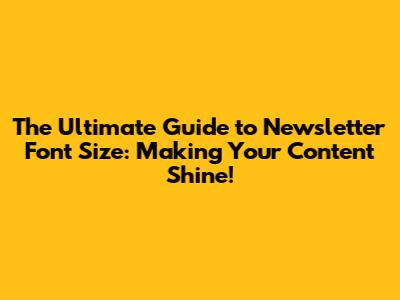
- Different Devices: Smartphones (iOS and Android), tablets, laptops, desktops.
- Different Email Clients: Gmail, Outlook, Apple Mail, Yahoo Mail, etc.
- Different Browsers: If your newsletter includes web content.
- Readability: Is the text easy to read without squinting?
- Spacing: Is the line height comfortable?
- Consistency: Does it look consistent across devices and clients?
- Responsiveness: Does the layout adjust well to different screen sizes?
Hey guys! So, you've poured your heart and soul into crafting an awesome newsletter, right? The content is killer, the design is slick, but there's one tiny detail that can make or break the reader experience: font size. Seriously, picking the recommended font size for paragraphs in a newsletter is way more important than you might think. It's the difference between readers devouring your every word and them squinting, getting bored, and hitting that unsubscribe button. Let's dive deep into why font size is king and how to nail it so your newsletters are not just read, but loved.
Why Font Size is a Newsletter Game-Changer
Alright, let's get real. When you're reading an email on your phone, a tablet, or even your trusty laptop, what's the first thing that can annoy you? Yep, text that's too small. If your readers have to zoom in or strain their eyes, they're not going to stick around. Choosing the right font size for newsletter paragraphs is all about making your content accessible and enjoyable. Think of it as the welcome mat for your readers – if it's tattered and tiny, they might just turn back. A good font size ensures your message gets across clearly and comfortably, encouraging longer reading times and better engagement. It's not just about aesthetics; it's about user experience (UX). In the fast-paced digital world, you want to make it as effortless as possible for your audience to consume your valuable information. A well-sized font reduces cognitive load, making it easier for readers to process the information you're providing. This is especially crucial for newsletters, which often contain a mix of informative content, calls to action, and brand messaging. If the text is too small, these elements can get lost or become frustrating to find. We're talking about making your newsletter a pleasure to read, not a chore. So, while you're busy crafting compelling copy and eye-catching visuals, don't forget the humble font size. It's the silent hero of newsletter readability, working tirelessly to keep your readers engaged from the first word to the last. It directly impacts how long someone spends reading, how much they retain, and whether they'll come back for more. Plus, it shows you care about your audience's comfort, which builds trust and loyalty. So, let's get this right, shall we?
The Sweet Spot: Recommended Font Sizes
So, what's the magic number? What's the recommended font size for paragraphs in a newsletter that hits that sweet spot? For body text in emails and newsletters, you generally want to aim for 16 pixels (px) as your baseline. Yes, 16px is widely considered the gold standard for desktop and mobile readability. Why 16px? It strikes a fantastic balance. It's large enough to be easily legible on most screens, even for those with less-than-perfect vision, without feeling overwhelmingly large or taking up too much precious space. Many email clients and web browsers now render text at this size or even larger by default, so aligning with it ensures consistency. However, don't stop there! Consider your audience and the complexity of your content. If your newsletter is packed with dense information or targets an older demographic, you might even bump it up to 17px or 18px. Conversely, if you have a very visually driven newsletter with short bursts of text, you might get away with 15px, but I'd honestly advise against it for primary paragraphs. Remember, this is for your main body text. Headings, subheadings, and captions will have different optimal sizes (we'll get to that!). The key is to test and see what works best for your specific newsletter and audience. Different fonts also have different x-heights (the height of lowercase letters like 'x'), which can affect perceived size. A 16px font from one family might look bigger or smaller than a 16px font from another. So, while 16px is your guiding star, always preview your newsletter on various devices and email clients to ensure it looks and feels just right. We're aiming for clarity, comfort, and a positive reading experience, and 16px is your best bet to achieve that broad appeal.
Desktop vs. Mobile: The Great Divide
Here's where things get a little tricky, guys. The recommended font size for newsletter paragraphs isn't a one-size-fits-all deal when you factor in devices. What looks great on a big desktop monitor might feel cramped on a small smartphone screen. The golden rule? Mobile-first design. Most people, especially these days, will be reading your newsletter on their phones. So, while 16px is a great starting point for desktop, you must ensure it looks equally, if not more, readable on mobile. Many email marketing platforms allow you to set different font sizes for desktop and mobile, which is super handy. Often, keeping body text at 16px for both is perfectly fine, as mobile devices have scaled things appropriately. However, some folks find that increasing the font size slightly on mobile – maybe to 17px or even 18px – can provide an even better reading experience. The key takeaway here is responsive design. Your newsletter should adapt gracefully to different screen sizes. Use fluid layouts and ensure your font choices render well across the board. Test, test, and test again! Send test emails to yourself and view them on various devices (iPhone, Android, different tablets, desktops) and in different email clients (Gmail, Outlook, Apple Mail). Pay close attention to how the text looks. Is it easy to read without zooming? Does it feel comfortable? Are the line heights appropriate (more on that later)? Prioritizing the mobile experience means you're catering to the majority of your audience and ensuring your message isn't lost in translation from a larger screen to a smaller one. Don't just set it and forget it; responsiveness is crucial for keeping readers engaged, no matter their device.
Beyond Pixels: Font Choice and Line Height Matter Too!
Okay, so we've hammered home the importance of 16px, but honestly, font size is only part of the readability puzzle, guys. Two other crucial elements are your font choice and line height. Let's break it down.
Font Choice: The Personality of Your Text
Not all fonts are created equal. When selecting a font for your newsletter, prioritize readability and web-friendliness. Serif fonts (like Times New Roman or Georgia) have small decorative strokes at the ends of letters, which can guide the eye along the line, making them traditionally good for print. However, on screens, sans-serif fonts (like Arial, Helvetica, Open Sans, or Lato) are often preferred. They are cleaner, simpler, and tend to render more crisply on digital displays, reducing eye strain. Stick to one or two fonts maximum – a primary font for body text and perhaps a different one for headings. Avoid overly decorative, script, or condensed fonts for your main paragraphs; they might look cool, but they're usually a nightmare to read in bulk. Think clarity and accessibility above all else. Ensure the font you choose has good legibility at smaller sizes and renders consistently across different email clients.
Line Height (Leading): Giving Your Text Room to Breathe
This is often overlooked, but line height, or 'leading' as it's known in the design world, is HUGE for readability. It's simply the space between lines of text. Too little, and the text looks cramped and hard to follow. Too much, and it can feel choppy and disconnected. For body text in newsletters, a good rule of thumb is to set your line height to 1.5 times your font size. So, if your font size is 16px, aim for a line height of around 24px (16 x 1.5 = 24). Some designers go slightly higher, like 1.6, for even more breathing room. This generous spacing prevents the reader's eye from getting lost on the next line and makes the text feel more open and inviting. It significantly improves reading speed and comprehension. Think of it as giving each line its own little lane on the highway – it reduces the chance of a crash and makes the journey smoother!
Testing is Non-Negotiable!
Seriously, guys, I can't stress this enough: test your newsletter before you send it. The recommended font size for newsletter paragraphs is a guideline, not a rigid rule. What looks perfect on your screen might be a disaster for someone else. Use the preview and testing features offered by your email marketing platform. Send test emails to yourself and colleagues. Check them on:
Look for:
This meticulous testing phase ensures that your carefully crafted message reaches your audience in the best possible way, maximizing engagement and minimizing frustration. It’s the final, critical step to guarantee your newsletter is a hit!
Conclusion: Font Size is Key to Newsletter Success
So there you have it, folks! Getting the recommended font size for newsletter paragraphs right is crucial for keeping your readers engaged and ensuring your message lands. Aim for a baseline of 16px, prioritize mobile-friendliness, choose readable fonts, implement generous line height (around 1.5x font size), and always test rigorously across different devices and email clients. Nail these elements, and your newsletters won't just be opened; they'll be read, enjoyed, and remembered. Happy emailing!